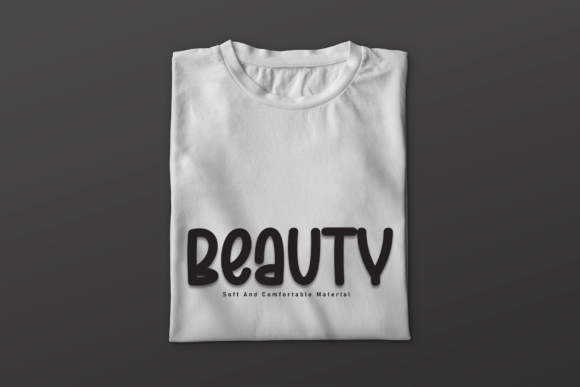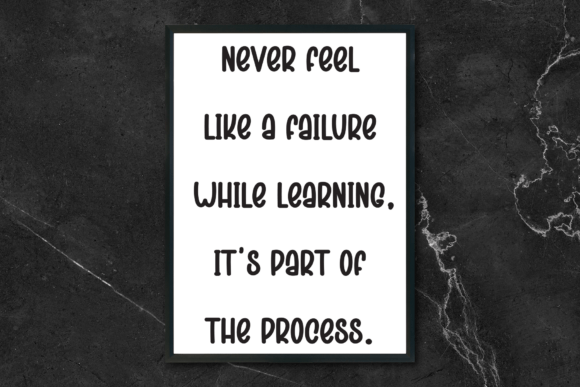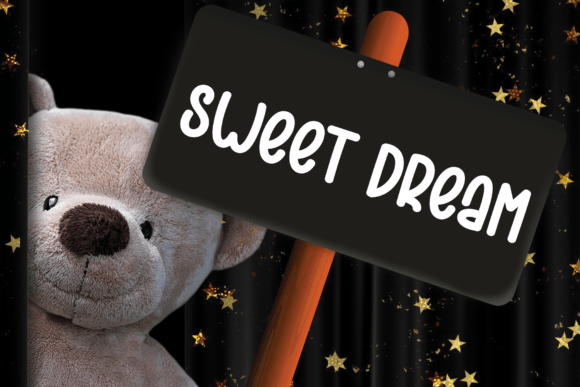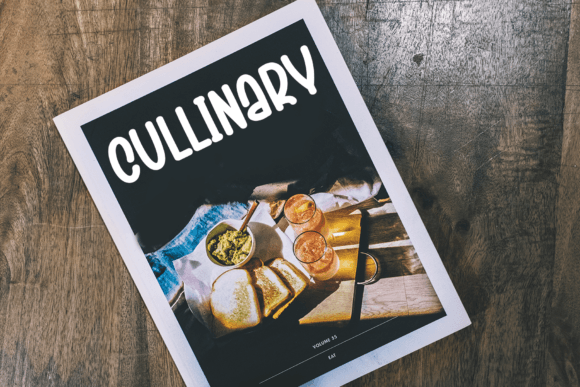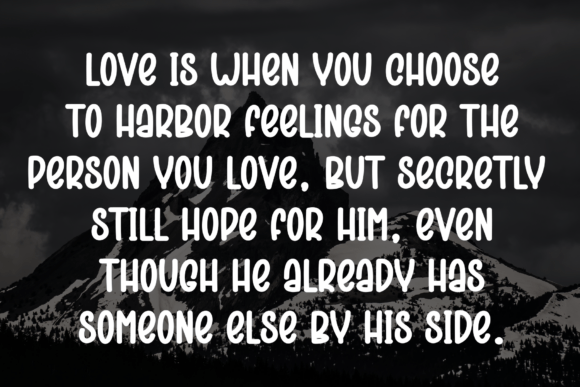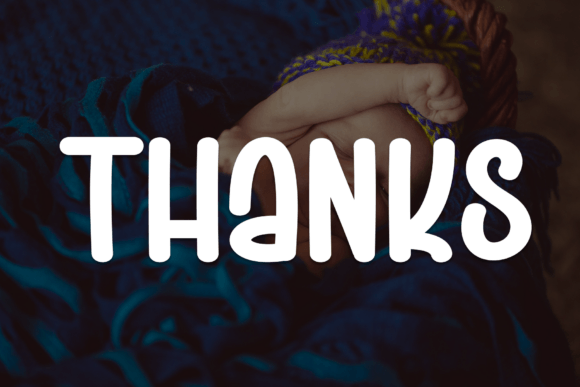
Baby Night Font: The Sweet and Friendly Handwritten Font for Your Design Needs
Are you a designer or crafter looking for a font that can add a touch of sweetness and friendliness to your designs? Look no further than the Baby Night Font! This beautiful handwritten font is perfect for a wide range of design projects, from baby-themed designs to more general creative endeavors. In this article, we’ll take a closer look at the Baby Night Font, its features, and how you can use it to take your designs to the next level.
What is Baby Night Font?
Baby Night Font is a sweet and friendly handwritten font that is designed to bring a touch of warmth and personality to your designs. Its natural and unique style makes it incredibly fitting to a large pool of designs, from baby shower invitations and nursery decor to craft projects and digital downloads. The font’s gentle and soothing appearance is sure to capture the hearts of your audience and leave a lasting impression.
Features of Baby Night Font
So, what makes Baby Night Font so special? Here are just a few of its key features:
- Handwritten style: Baby Night Font is a handwritten font, which gives it a personal and unique touch. Its natural and fluid appearance makes it perfect for designs that require a human touch.
- Sweet and friendly: The font’s sweet and friendly appearance makes it perfect for baby-themed designs, but it’s also versatile enough to be used for more general creative projects.
- Unique style: Baby Night Font has a one-of-a-kind style that sets it apart from other fonts. Its distinctive appearance is sure to make your designs stand out from the crowd.
- Easy to read: Despite its handwritten style, Baby Night Font is easy to read and understand, making it perfect for designs that require a clear and concise message.
Uses for Baby Night Font
Tips for Using Baby Night Font
In conclusion, Baby Night Font is a sweet and friendly handwritten font that is perfect for designers and crafters looking to add a touch of warmth and personality to their designs. Its natural and unique style makes it incredibly fitting to a large pool of designs, and its ease of use makes it accessible to everyone. Whether you’re creating baby-themed designs or more general creative projects, Baby Night Font is sure to become a favorite in your font collection.